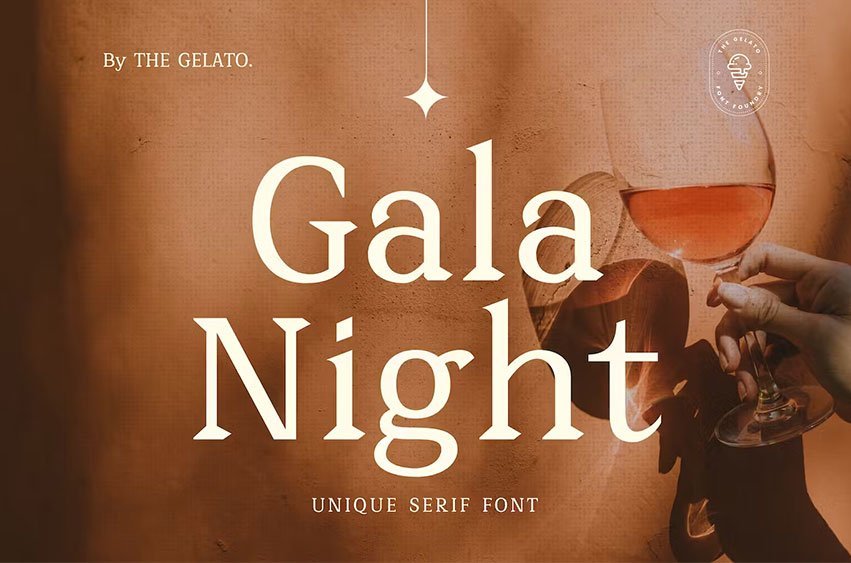
Gala Night Serif Font is a Modern Serif Font that can be used as a Luxury Serif Font, Modern Branding Font, Elegant Canva Font, Minimal Packaging Font, Aesthetic Logo Font, Handcrafted Editorial Font, Classy Serif Font, Minimal Branding Font, Premium Logo Font, Elegant Brand Font, Marketing Font, Procreate Font, Business Font, Brand Logo Font
Perfectly suitable for numerous use such as quotations, banners, logos, product packaging, titles, headers, Business Carde, menu lists, and invitation cards!